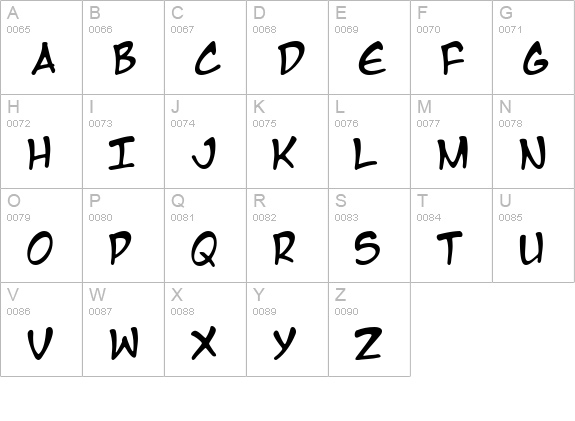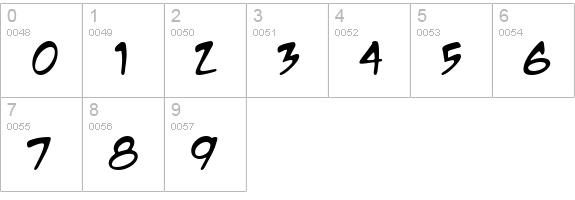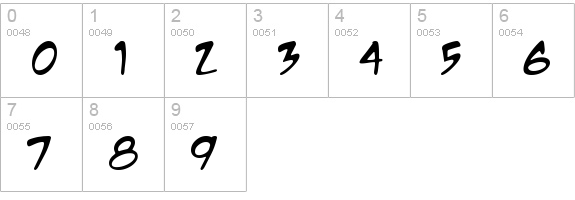
Manga Temple Font Details
Introducing Manga Temple, a captivating and dynamic font that will transport you straight into the exhilarating world of manga. This font is the perfect blend of traditional Japanese calligraphy and contemporary design, creating a unique and eye-catching style that will captivate any reader. With its bold strokes and intricate details, Manga Temple embodies the essence of the manga genre, exuding a sense of energy and excitement that will bring your designs to life. Whether you're creating a comic book, poster, or any other visual project, this font will add a touch of authenticity and intrigue, making it truly stand out from the crowd. One of the best aspects of Manga Temple is that it is freely available to download at FontsMarket.com. Yes, you read that right – this incredible font can be yours at no cost. FontsMarket.com is dedicated to providing high-quality fonts to designers, and Manga Temple is no exception. So why wait? Dive into the world of manga and let Manga Temple be your guide. Download this amazing font from FontsMarket.com and unleash your creativity like never before. With Manga Temple, the possibilities are endless.